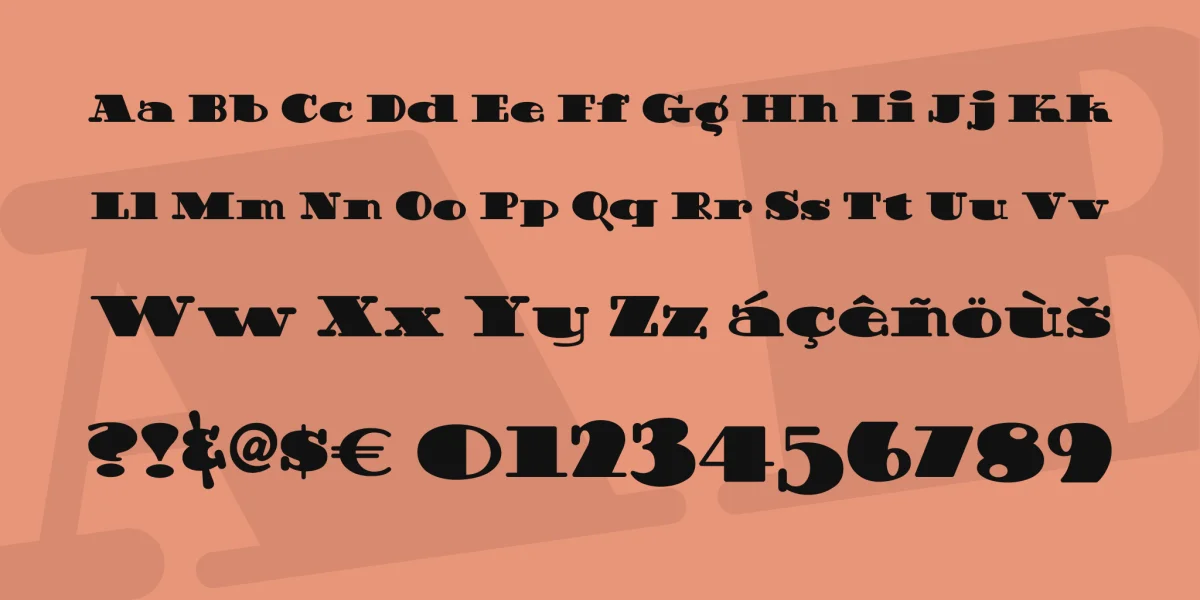
This font is based on more typographic musings circa 1938 from those masters of the Really Fat Face, Paul Carlyle and Guy Oring, who also provided the inspiration for Tara Bulbous. Named, of course, after that very fine porter from St. James Gate, Dublin, this font demands attention — and gets it.